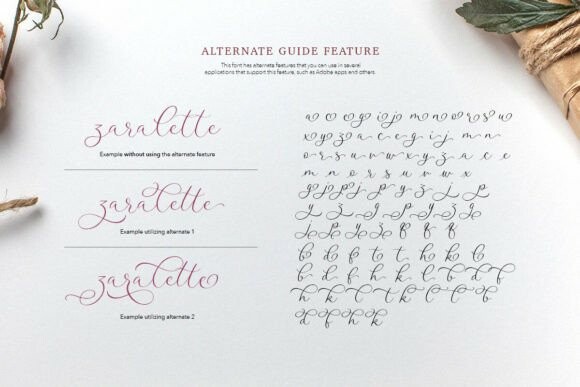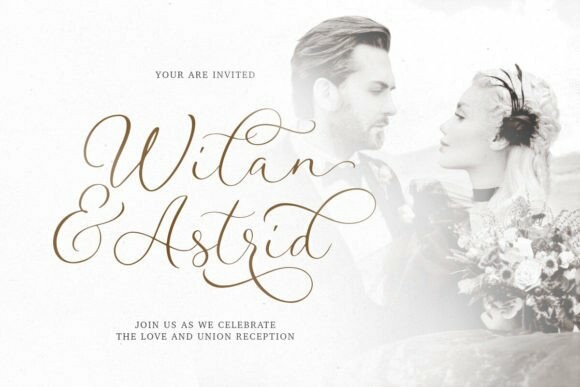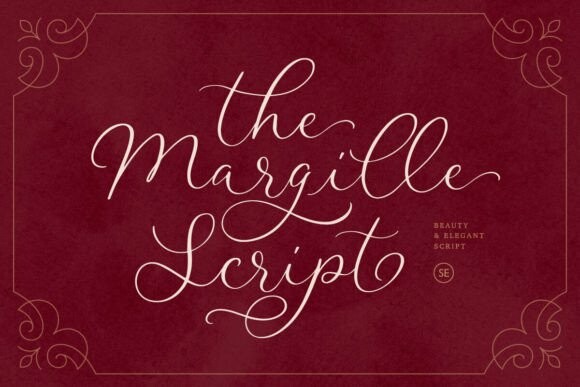
Margille Font
Designer: saridezra
Margille Font is beautiful and elegant handwritten script that contain lowercase, uppercase, symbol, and also support multi language. Including ligatures, initial & terminal alternates, special swash, and many alternates. You can use this font to make a logo for branding, beautiful fashion design, suitable for wedding invitation, or handwritten quote.